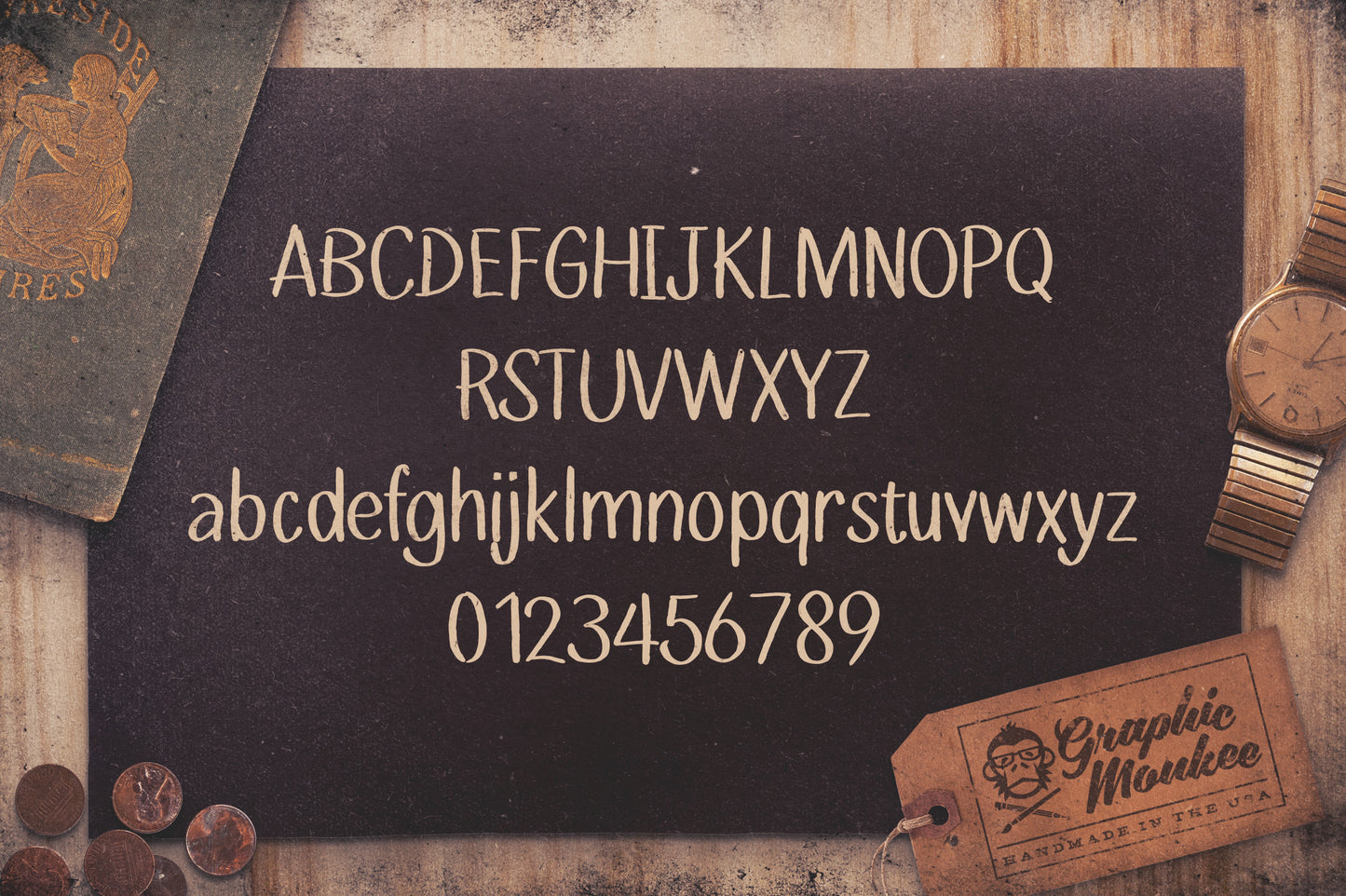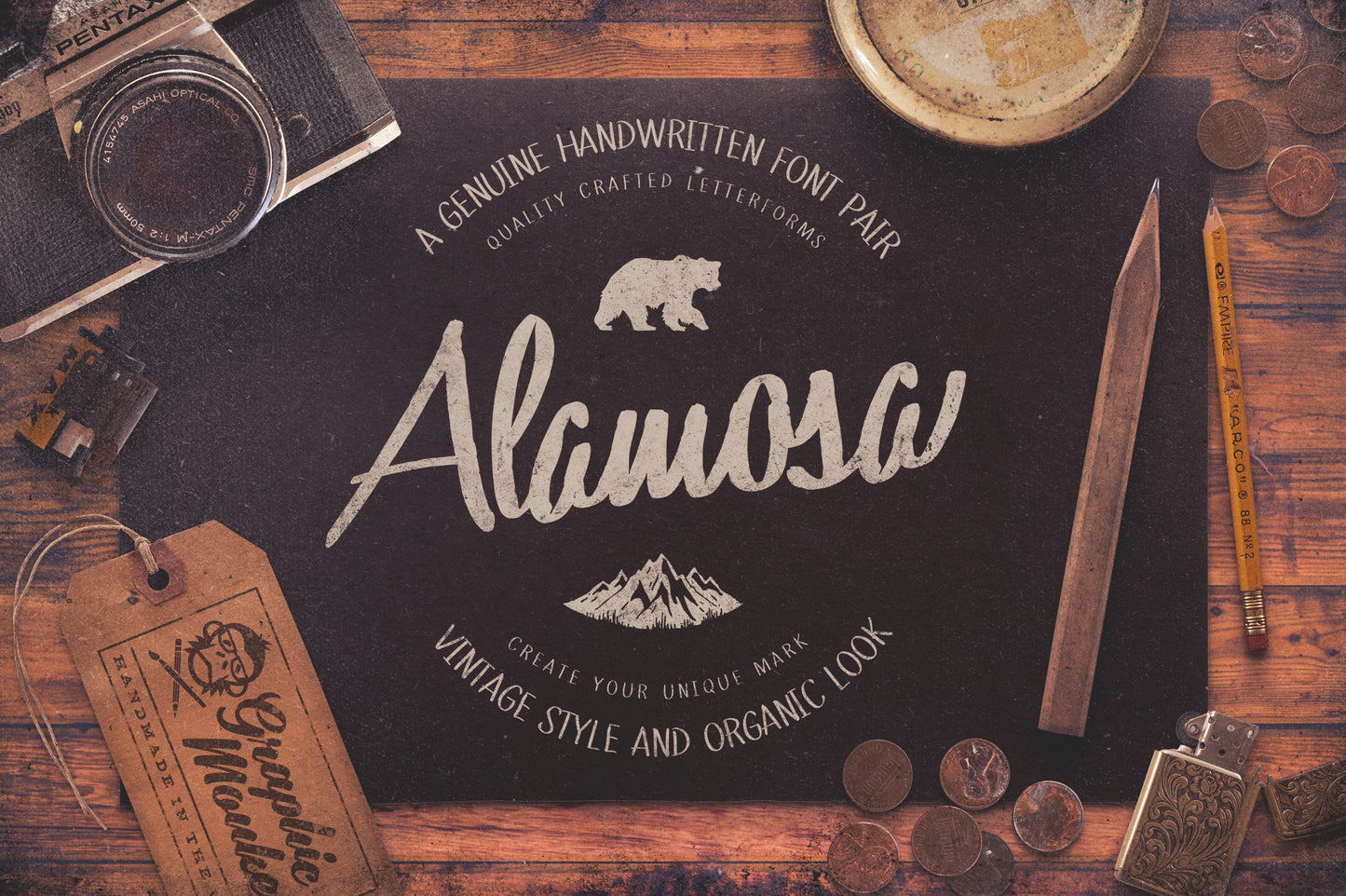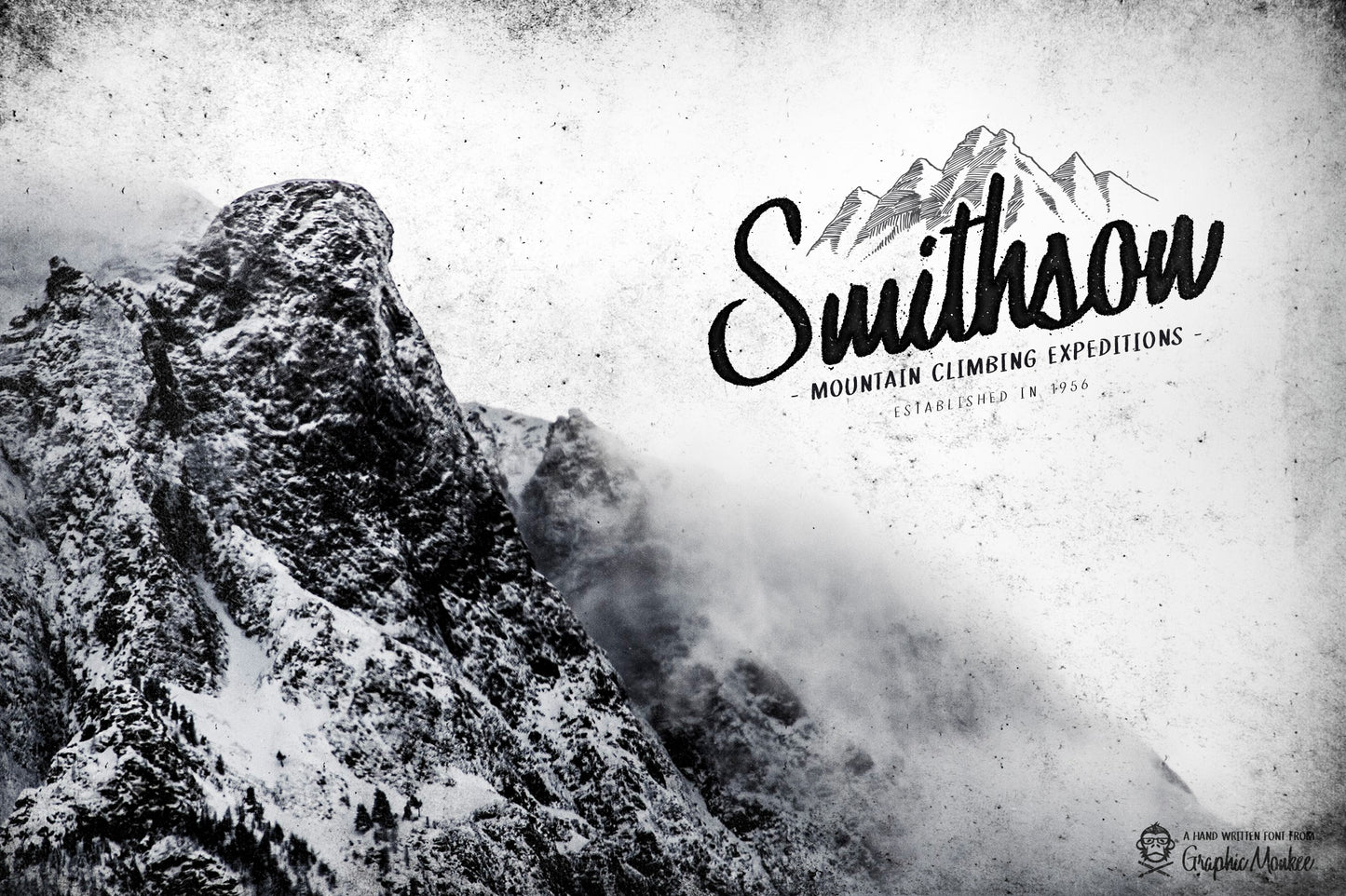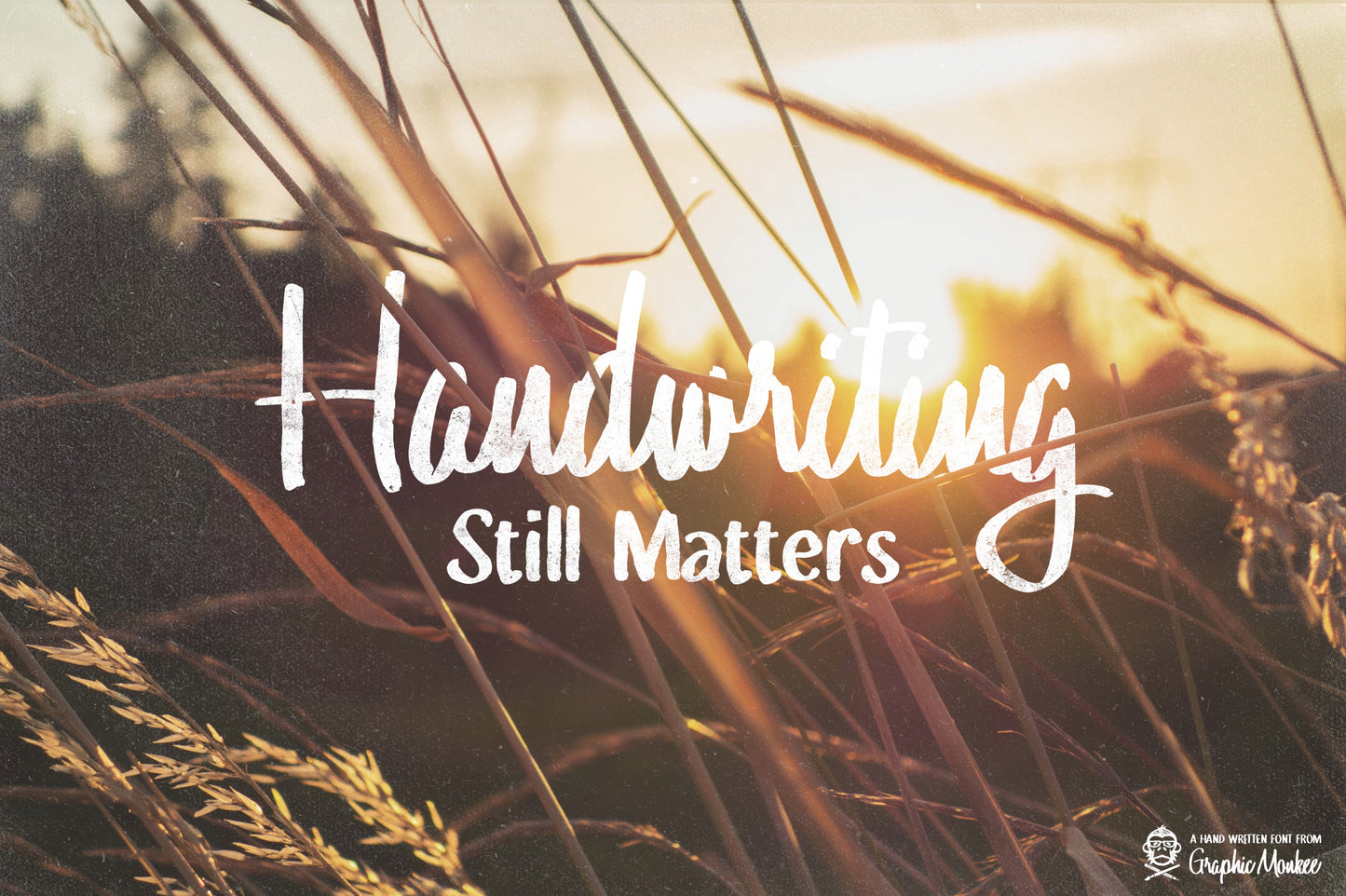
Alamosa – Handwritten Font Pair
Ever sifted through your font collection looking for the perfect handwritten font? This is exactly why I created Alamosa. It has that natural handwriting look, but remains easy to read. It’s so perfectly imperfect that it could be anyones handwriting. It’s beautiful, but not fancy. It’s the perfect font for your next handmade work.
Try this font in your next vintage badge design and watch the composition shift to an organic handmade look!